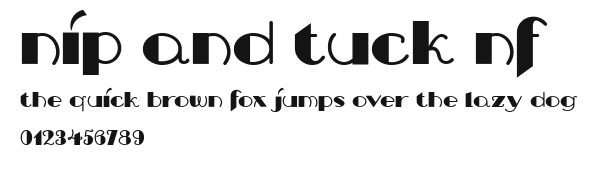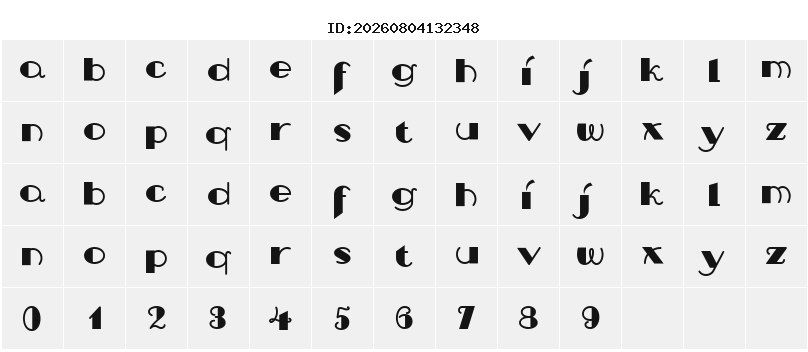
• Font Name: Nip And Tuck NF
• Font ID: Nick'sFonts: Nip And Tuck NF: 2006
• Full Font Name: Nip And Tuck NF
• Version: Version 1.002
• PostScript Name: NipAndTuckNF
• Designer: Nick Curtis
• Manufacturer: Nick's Fonts
About Nip And Tuck NF.ttf
Nip And Tuck NF.ttf is a modern, elegant sans-serif font designed for ultimate readability and visual harmony. Perfect for branding, headlines, web design, and print materials.